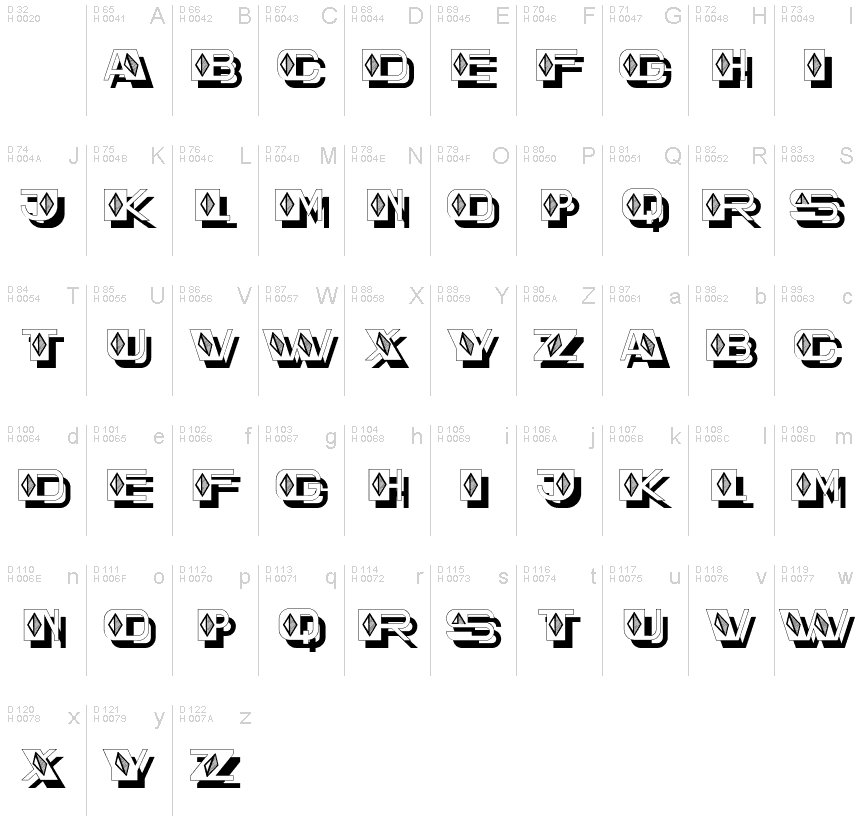
Modern Settlement Regular
Modern Settlement font is a retro decorative typeface designed by Vladimir Nikolic.
"Modern Settlement" comes in Regular and Flat version!